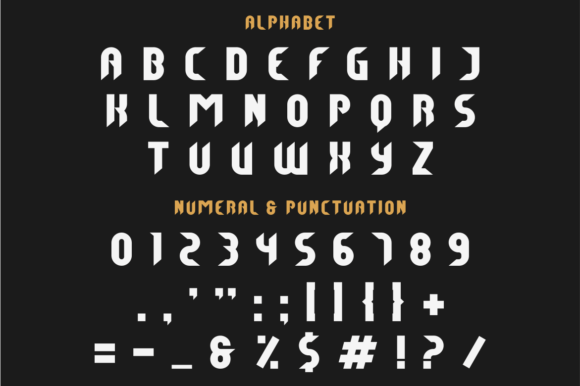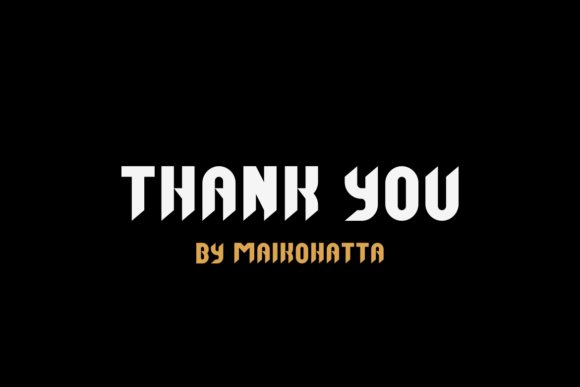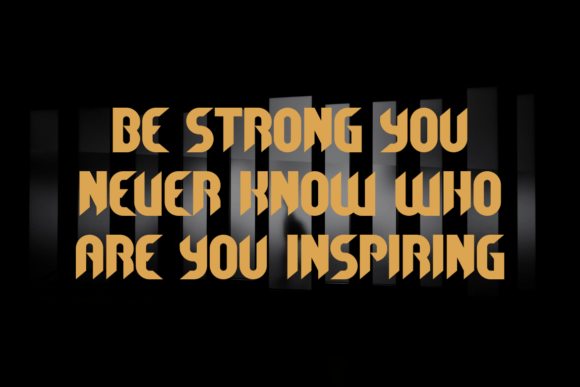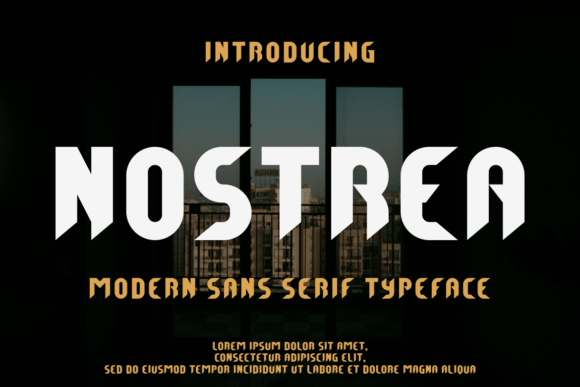
Introduction to Nostrea Font
**NOSTREA FONT** – Modern Font is a bold and authentic display font.
The font is suitable for any branding project like logo, template design, esport, and many more outstanding in a wide range of contexts.
Key Features of Nostrea Font